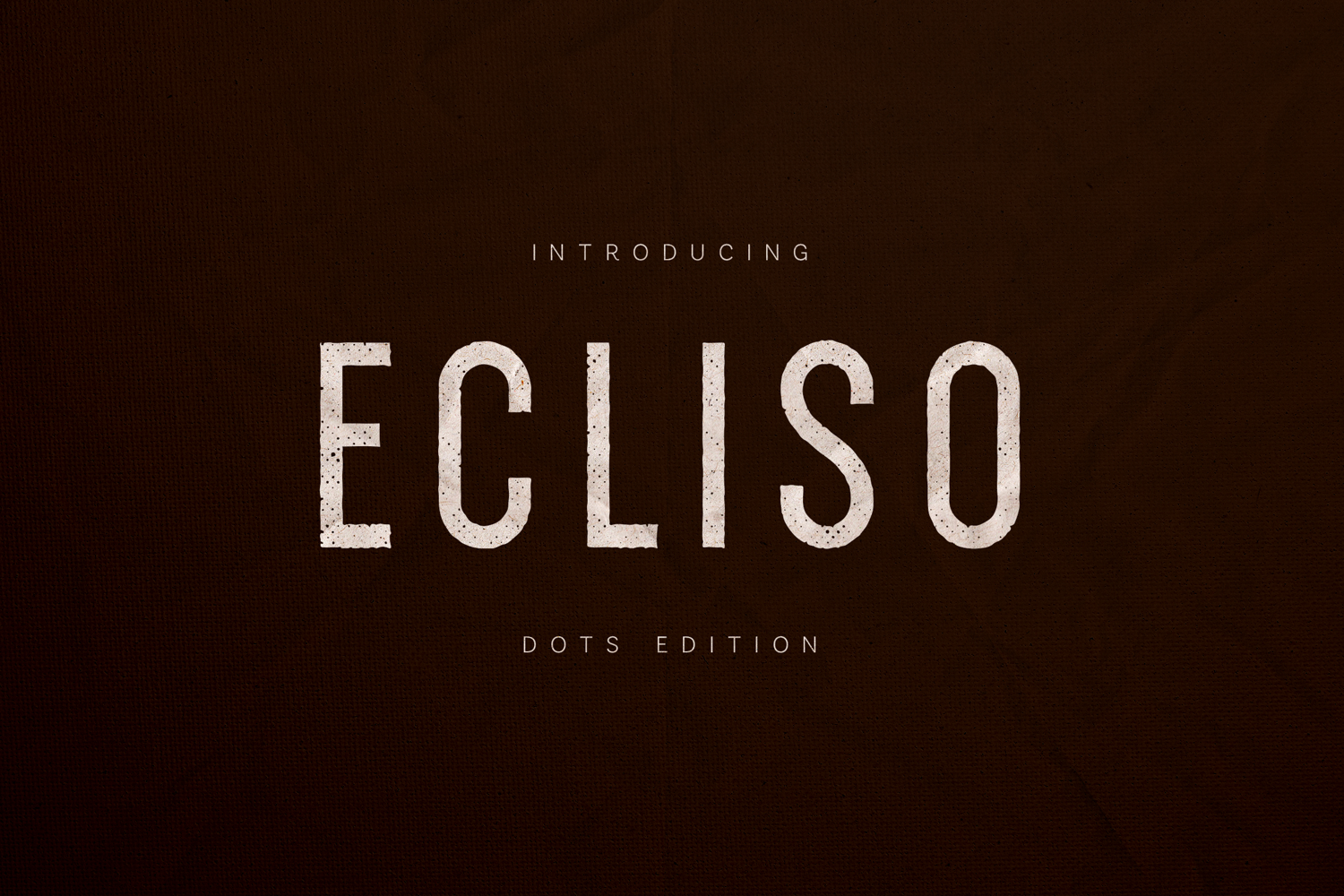
Ecliso Dots Edition Modern Textured Sans Serif Font
Ecliso – Dots Edition is a modern textured sans serif font featuring a distinctive dotted grain effect that gives the letterforms a subtle handcrafted character. The texture creates a unique visual depth while maintaining the clean structure of a contemporary sans serif typeface.
The font blends modern minimal geometry with a vintage-inspired print texture, producing a typeface that feels both contemporary and slightly nostalgic. The dotted pattern adds personality without overwhelming the shapes, allowing the letters to remain highly legible while delivering a distinctive typographic style.
Ecliso works beautifully for branding design, logo creation, editorial layouts, posters, magazine titles, packaging design, visual identity systems, social media graphics, modern typography compositions, and creative design projects that require a clean structure with a textured aesthetic.
The font includes uppercase letters, lowercase letters, numerals, punctuation, symbols, and extended multilingual support, allowing designers to create typography that works across many international languages and design contexts.
The character set provides flexibility for a wide range of layouts, from strong headline typography to refined typographic compositions.
With its combination of clean construction and dotted texture, Ecliso – Dots Edition delivers a distinctive sans serif typeface designed to bring personality and atmosphere to modern typography.